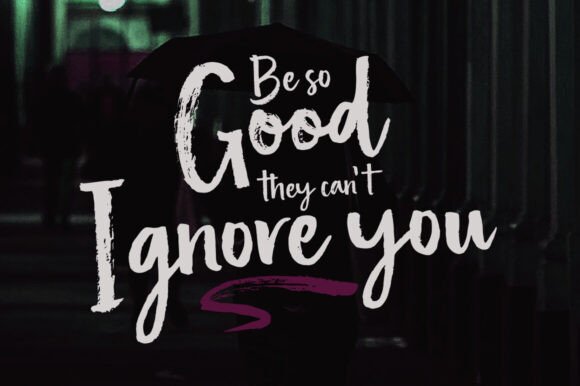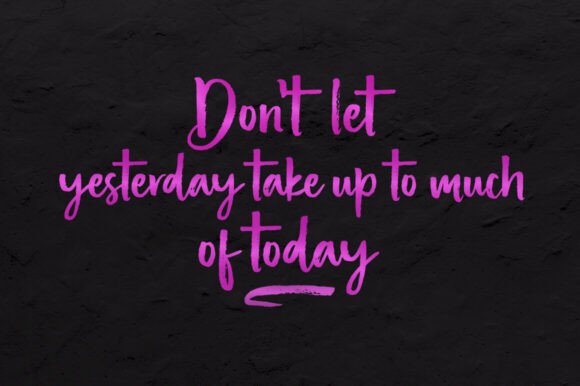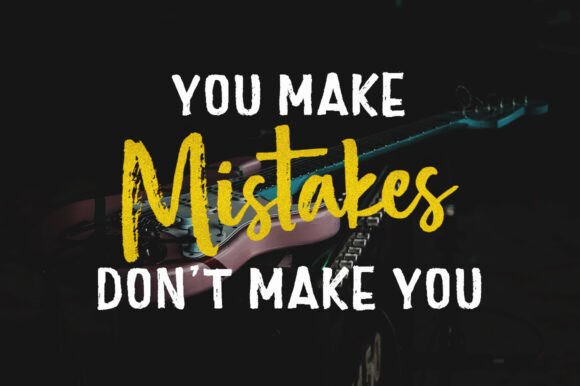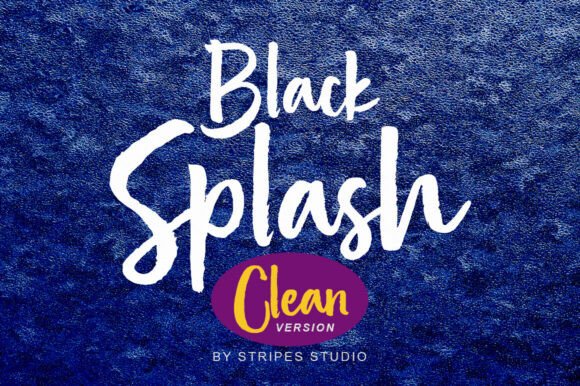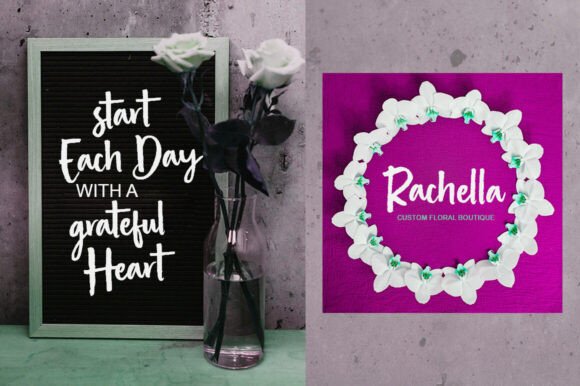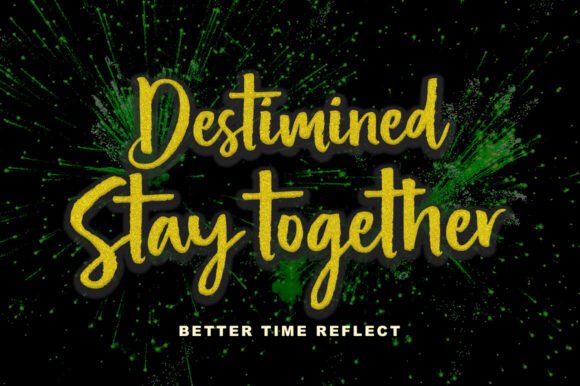
The Perfect Splash of Creativity: A Deep Dive into Black Splash Font
I’ll never forget the time I was working on a wedding invitation project, and my client asked for a font that was “fun, quirky, and totally Instagram-worthy.” I scoured the internet, tried out a gazillion fonts, but nothing seemed quite right. That was until I stumbled upon Black Splash Font. ✨ It was love at first sight! The hand-brushed script with its detailed texture and playful vibe instantly captured the essence of what my client was looking for. In this article, I’ll share my experience with Black Splash Font, its features, and how you can make the most of it in your designs.
An Honest Review of Black Splash Font
- ✨ Super casual and hand-brushed feel that adds a personal touch to any design
- ✅ Detailed brush stroke texture that gives it a unique, organic look
- 🎉 Quirky and playful vibe that’s perfect for creative projects
- 🖌️ Versatile and can be used for various purposes, such as titles, signatures, letterheads, and more
While Black Splash Font is an amazing addition to any design project, there are a few things to keep in mind: 🤔
- ⚠️ It can be a bit tricky to read at smaller font sizes, so it’s best used for headlines or titles
- ⚠️ Some of the letters and glyphs might not be suitable for body text or formal documents
The Story Behind Black Splash Font
Black Splash Font was designed with creativity and playfulness in mind. Its creator wanted to craft a font that would capture the essence of hand-brushed lettering, with all its imperfections and quirks. The result is a font that’s perfect for designers, crafters, and creative hobbyists who want to add a personal touch to their work.
| Author | Stripes Studio |
Q: What is Black Splash Font best used for?
A: Black Splash Font is perfect for creative projects, such as titles, signatures, letterheads, signage, labels, newsletters, posters, logos, and more.
Q: Is Black Splash Font easy to read?
A: Black Splash Font can be a bit tricky to read at smaller font sizes, so it’s best used for headlines or titles.